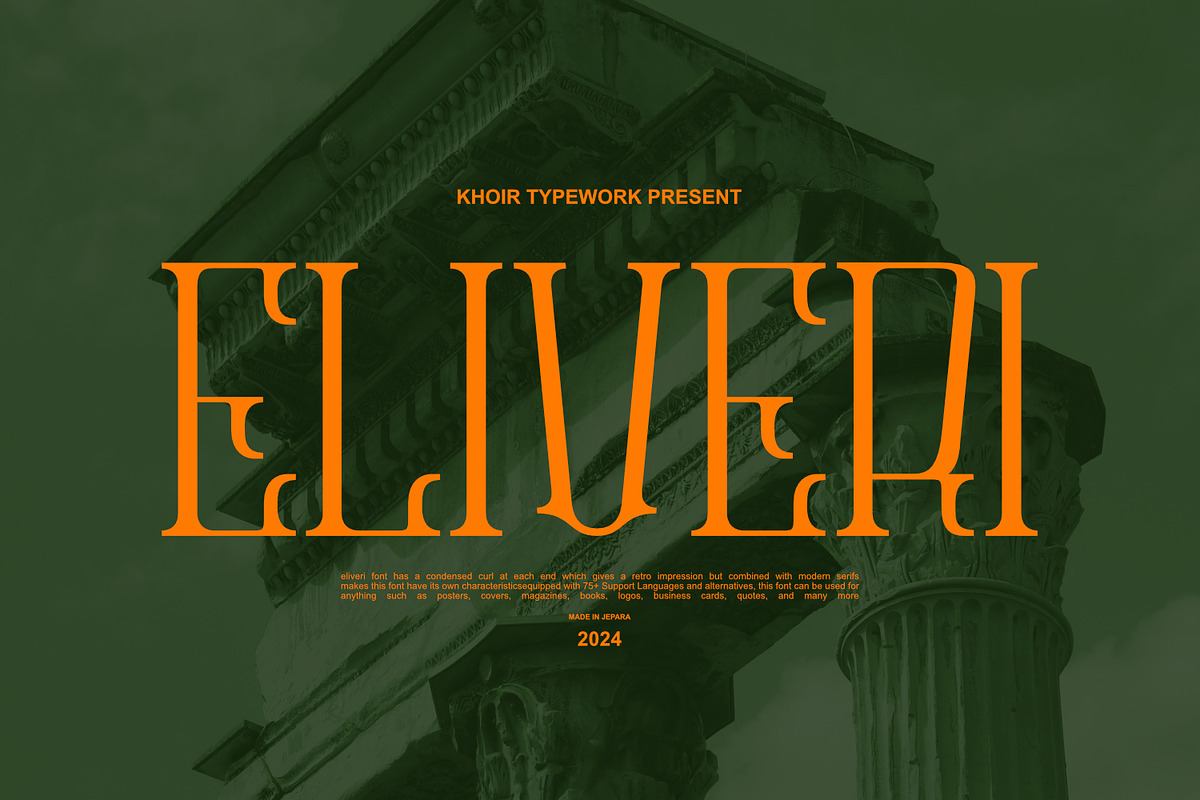
Eliveri Classic Font Free Download
The Eliveri Classic Font Free Download is a timeless serif typeface that combines elegance with readability. Perfect for creating logos, branding, editorial designs, invitations, and more, this font adds a refined and sophisticated touch to any project. Please note, for commercial use, a license must be purchased. You can download it for free for testing purposes.
With its balanced letterforms and classic design, the Eliveri Classic Font Free Download is ideal for projects that require a professional and polished look. Whether you’re designing for high-end branding, print materials, or digital content, this font brings a touch of traditional sophistication to your work.